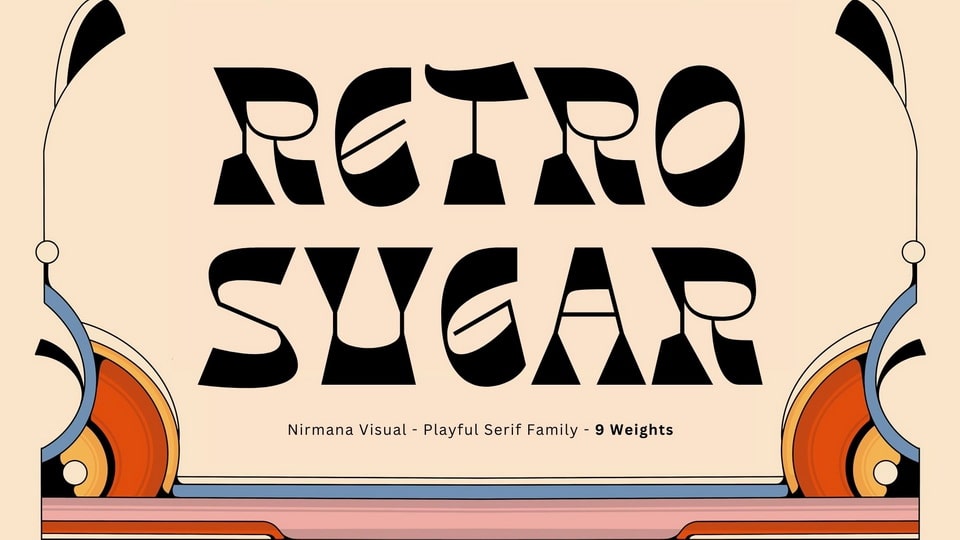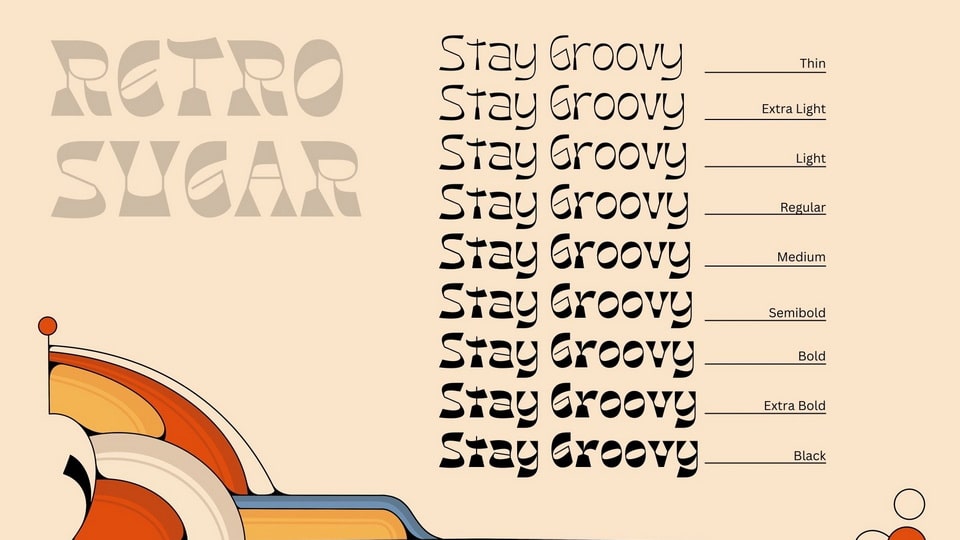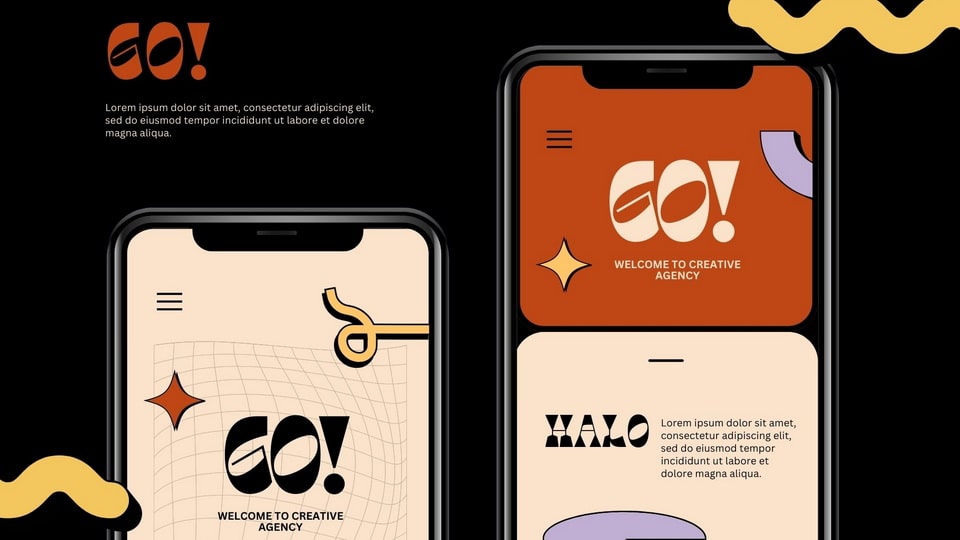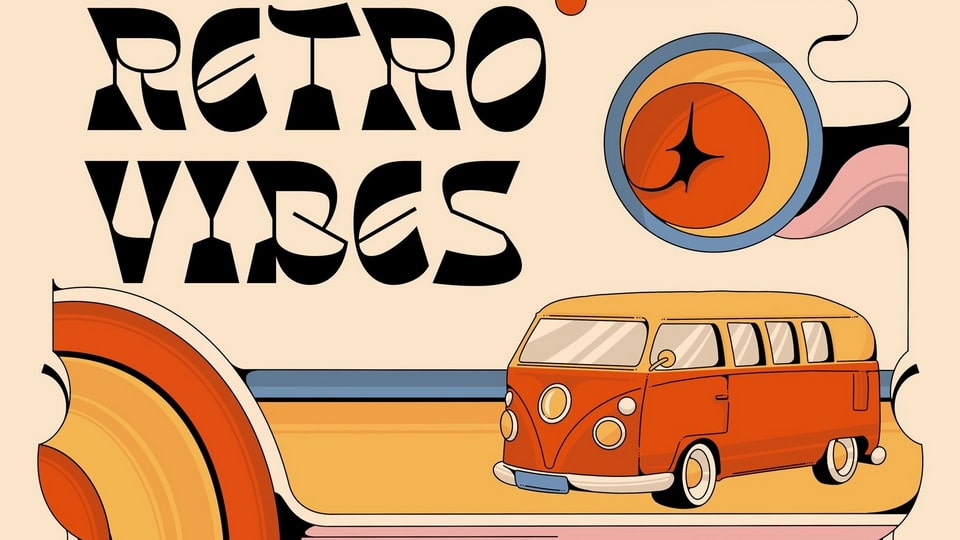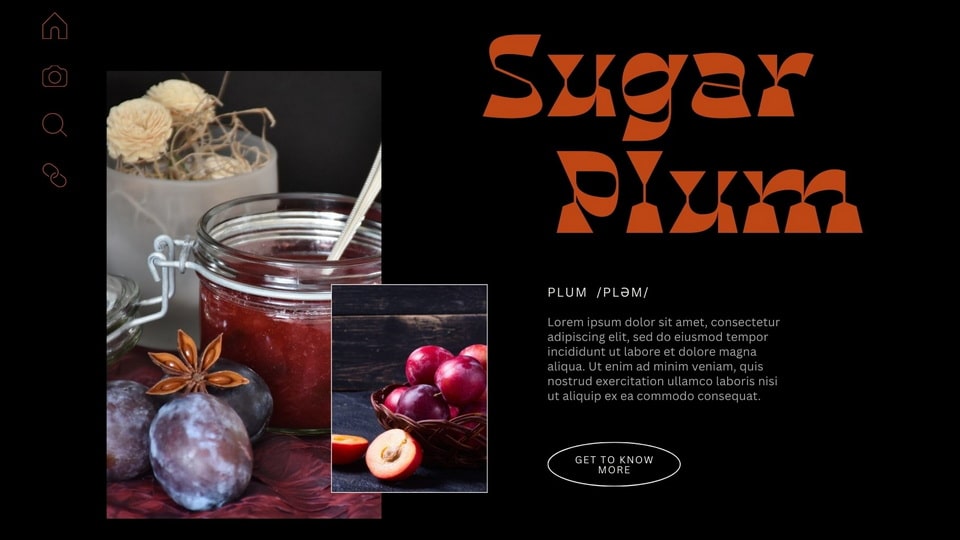
Retro Sugar is a unique and playful serif typeface with 9 weights. Retro Sugar offers beautiful typographic harmony for a diversity of design projects, including logos and branding, social media posts, advertisements and product designs.